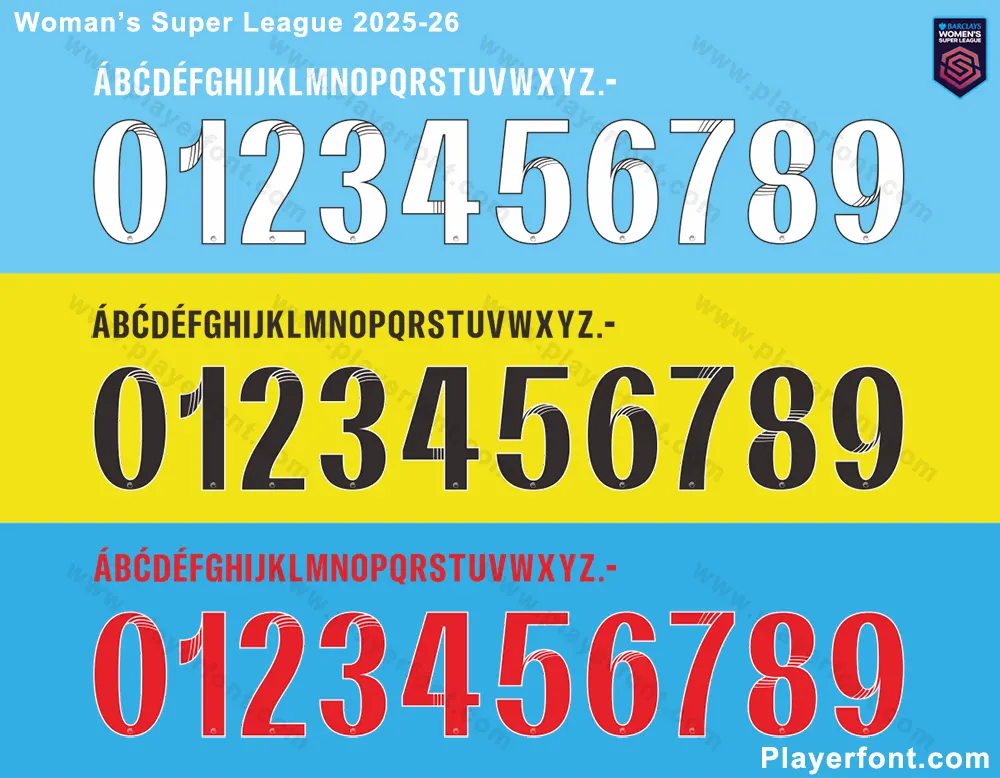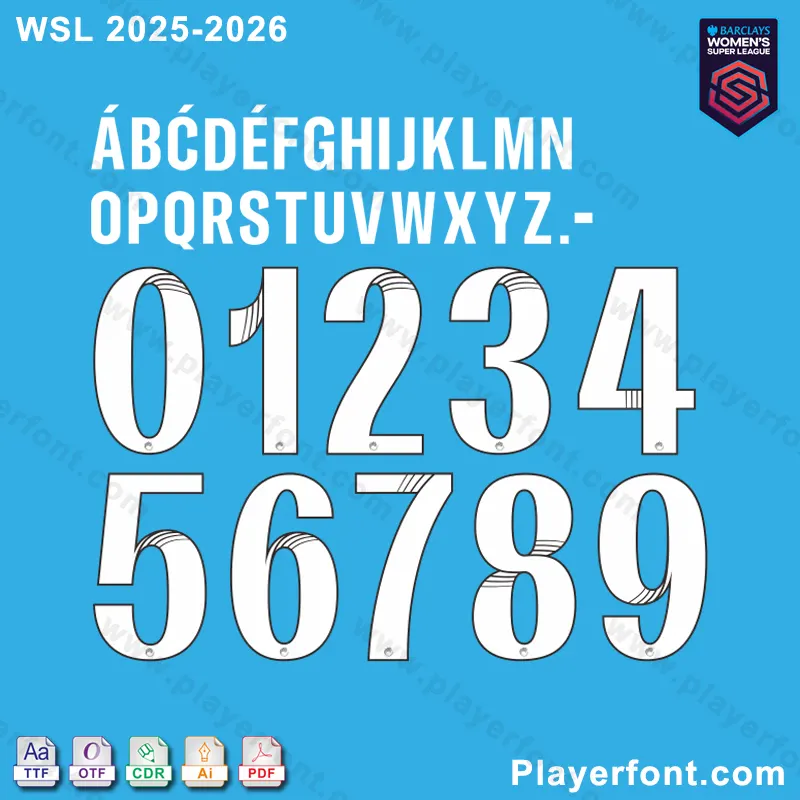
Women’s Super League 2025-26 Font Download
Elevate your designs with the official font of the Women’s Super League 2025-26 season. This all-inclusive package provides:
✅ Official Style – Matches WSL 2025-26 branding.